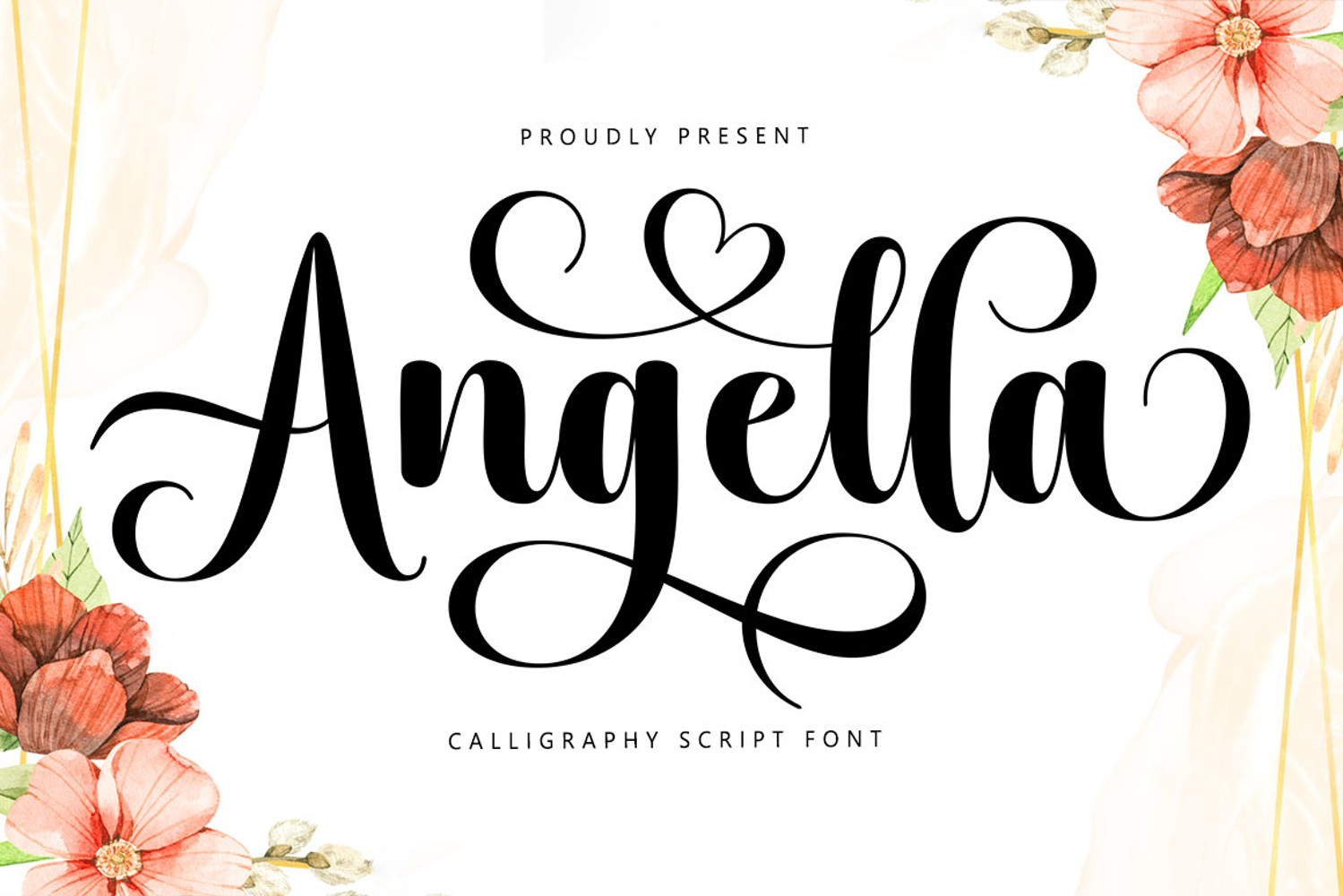
Angella
Angella is a calligraphy font with beautiful alternate characters. This font combines calligraphy with handwritten style. It is designed to convey an elegant and romantic style.
Angella is appealing because it is delicate, clean, feminine, sensual, glamorous, simple, and highly legible. Its classic style is perfect for all kinds of formal uses such as invitations, labels, menus, logos, fashion, makeup, stationery, letterpress, romance novels, magazines, books, greeting/wedding cards, packaging, and labels.